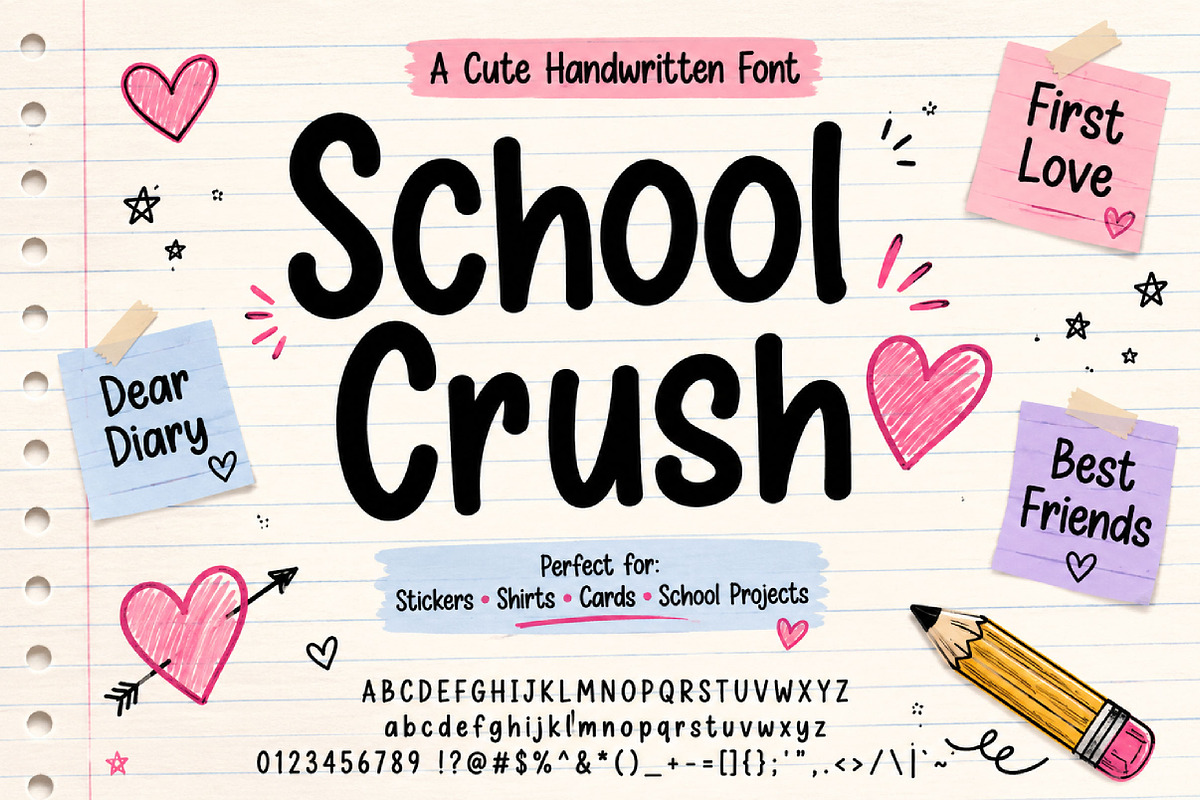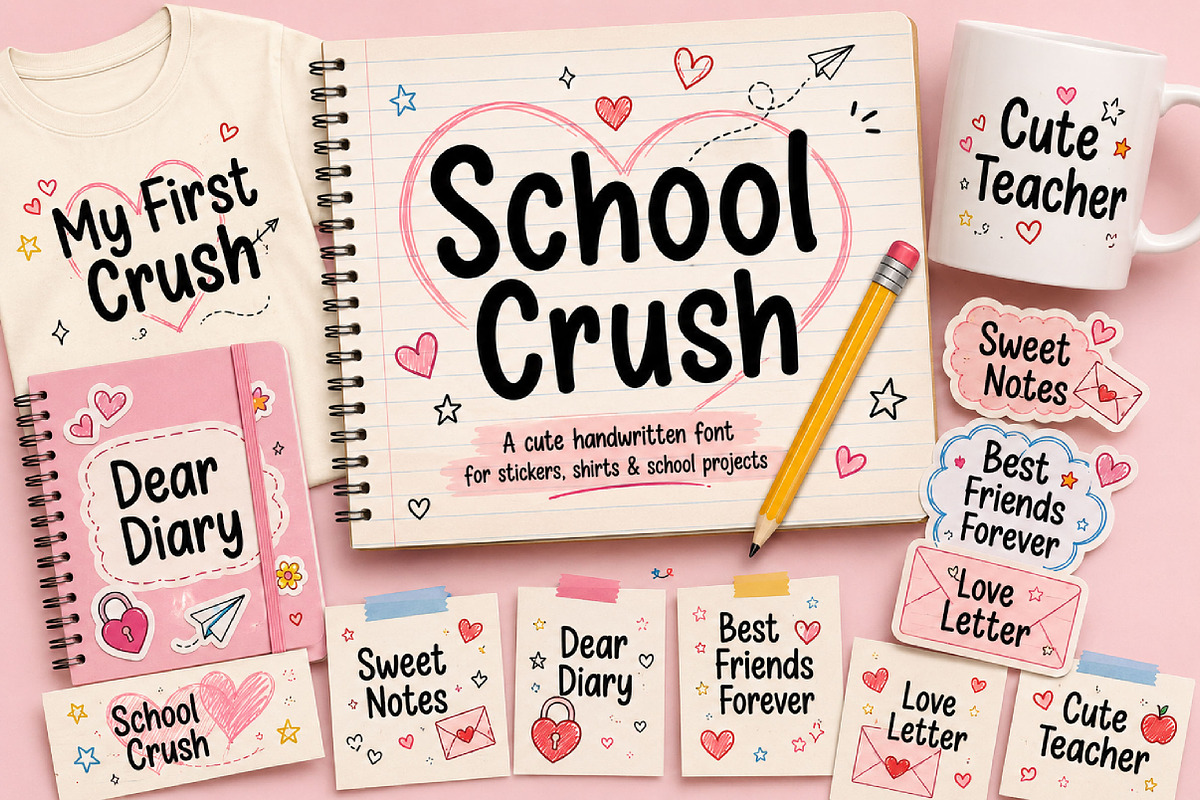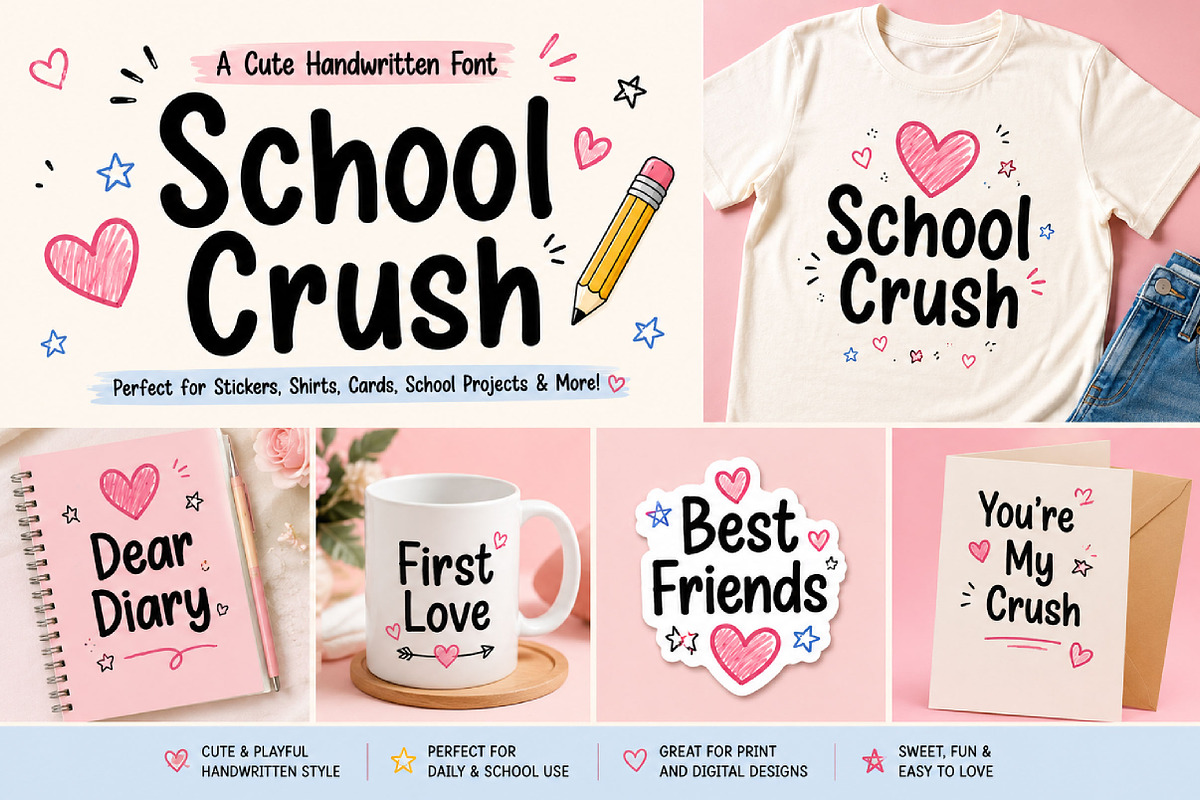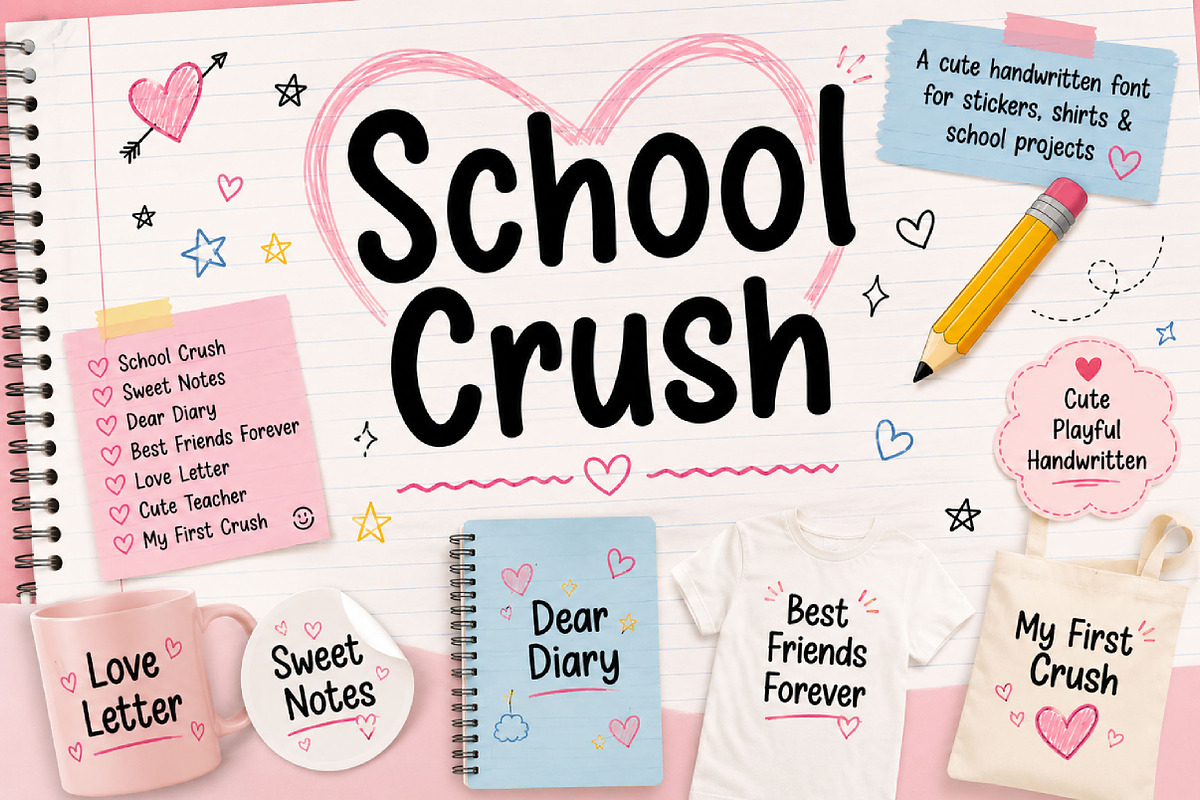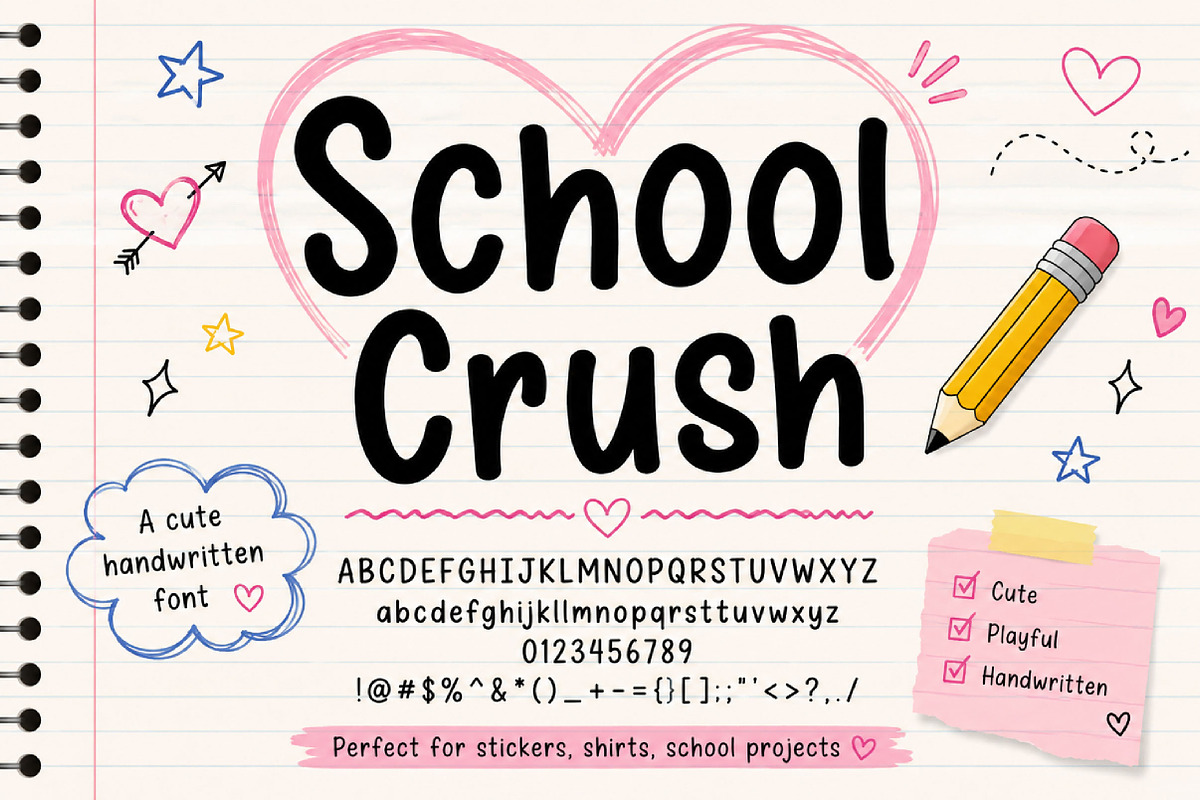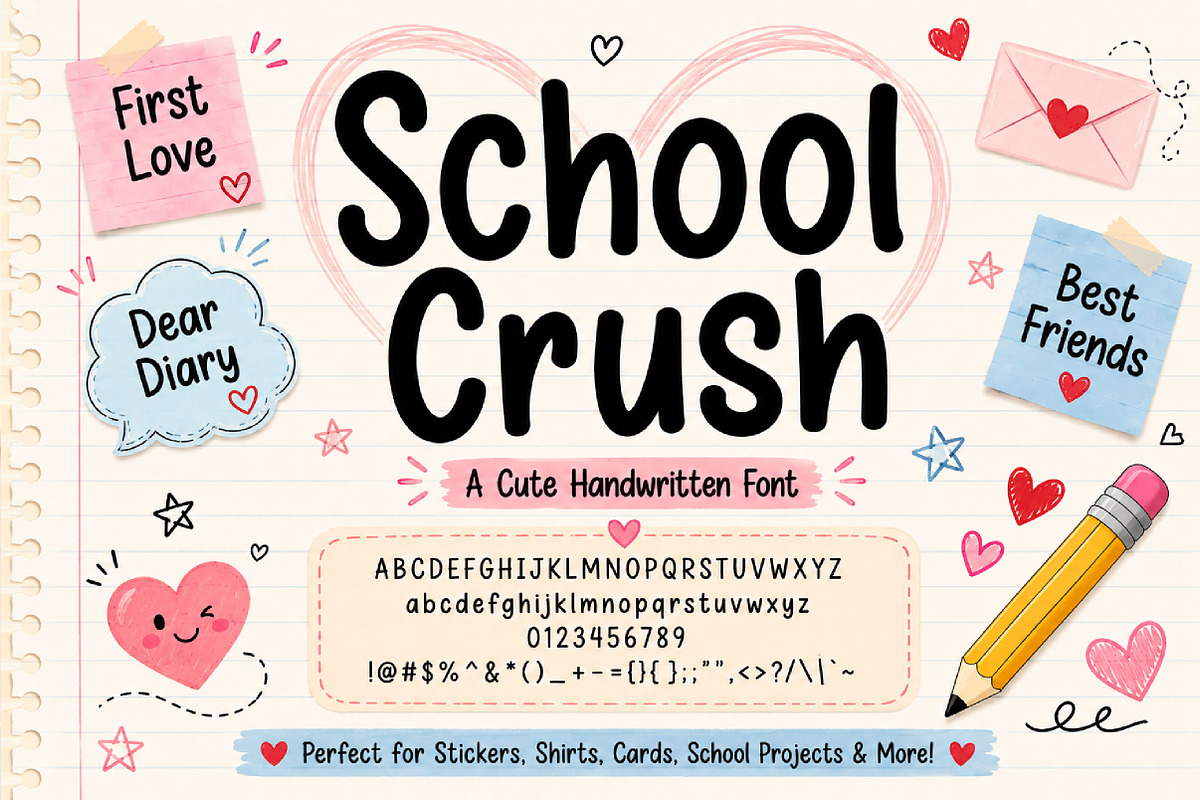
School Crush
School Crush – Cute Handwritten Display Font
School Crush is a cute handwritten display font with a playful school-style look, perfect for classroom materials, kids’ designs, posters, stickers, logos, and cheerful creative projects.
School Crush is a fun and playful handwritten display font inspired by cheerful school doodles and youthful handwriting styles. Featuring smooth curves, rounded strokes, and friendly letterforms, this font creates a warm and approachable personality that feels cute, casual, and expressive.
Its playful handwritten style makes School Crush perfect for classroom materials, children’s books, posters, stickers, school projects, social media graphics, apparel, and fun branding designs. The bold and clean shapes keep the text easy to read while adding a charming handmade touch.
Whether you’re creating educational content, playful merchandise, or cute creative projects, School Crush brings a joyful and energetic vibe that instantly makes your designs feel lively and memorable.
Classroom materials
Kids’ designs
Posters and headlines
Stickers and labels
Children’s books
School projects
Apparel and merchandise
Cute branding projects
Playful handwritten themes
Uppercase letters
Lowercase letters
Numbers and punctuation
Handwritten display style
Smooth rounded strokes
Cute playful appearance
Friendly letterforms
Perfect for display use